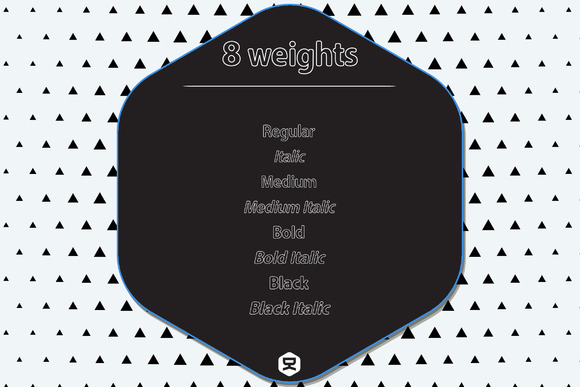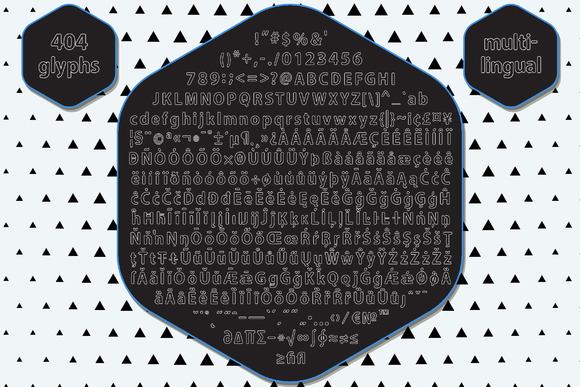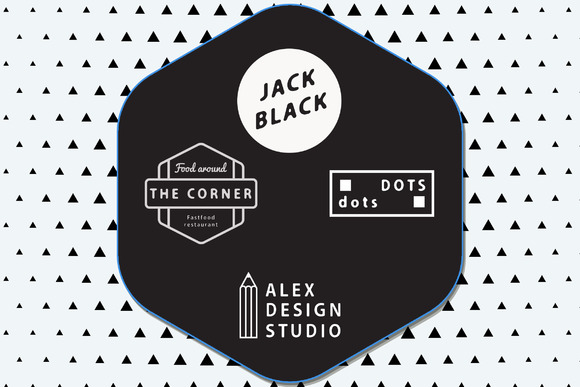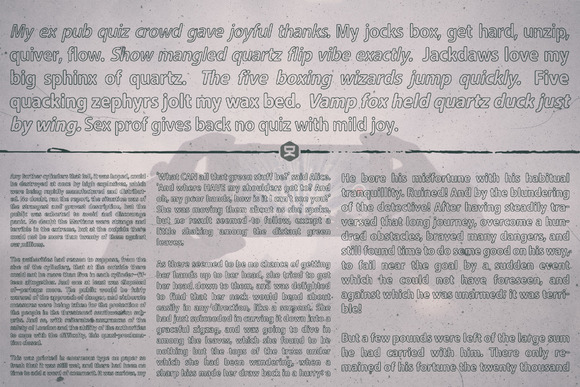
Introduction to Carson Outline Font
CARSON Outline is a modern and robust slightly rounded display font.
Looks good on large sizes and in all caps, as well as in small, regular type .
Key Features of Carson Outline Font
Why Choose Carson Outline Font?
Carson Outline Font offers exceptional quality and versatility, making it a valuable addition to your design toolkit. Whether you’re creating for personal projects or commercial use, Carson Outline Font delivers professional results.